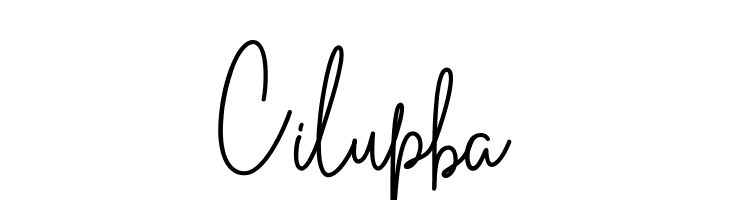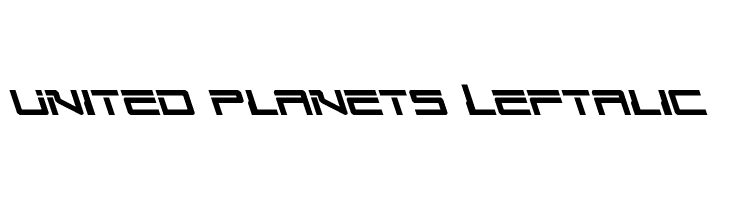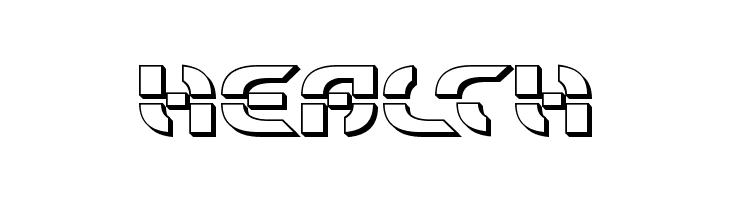
A futuristic, angular font with a bold and dynamic style.
A playful, handwritten script font with a modern and whimsical style.
A bold, geometric font with sharp angles and a strong, modern presence.
A bold, angular font with a modern and dynamic style.
A bold, decorative font with gothic and bubble-like elements, featuring high contrast and intricate detailing.
Elegant cursive script with a handwritten style.
A bold, 3D inverted font with geometric lines and a modern aesthetic.
A bold, playful font with striped, hand-drawn characters.
A decorative collection of floral and ornamental motifs.
Animal-themed silhouette dingbat font.